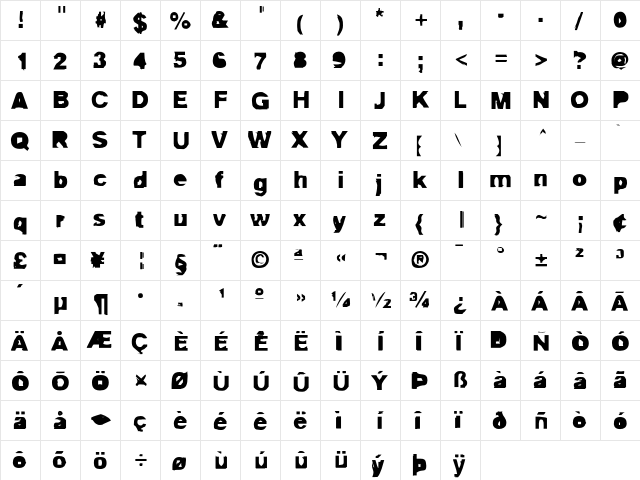
Autotrace Double
Design Context for Autotrace Typeface
Autotrace is a composed and adaptable typeface that performs quietly and consistently across a wide range of design contexts.